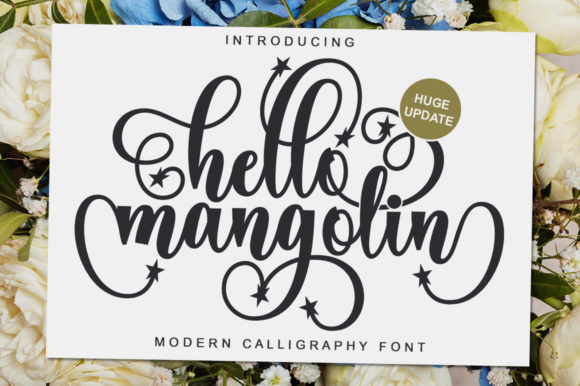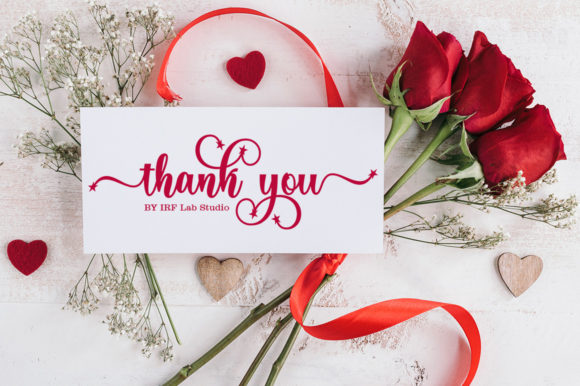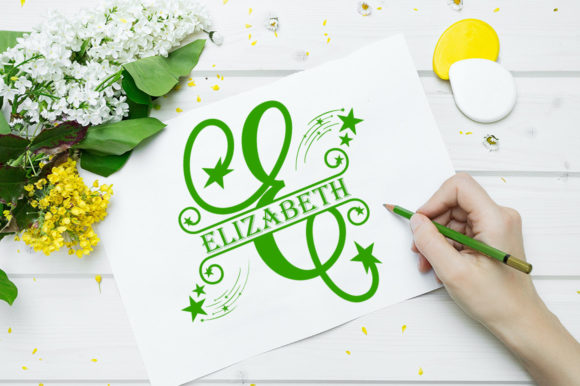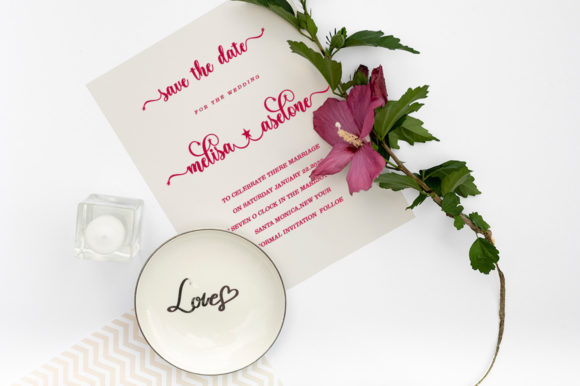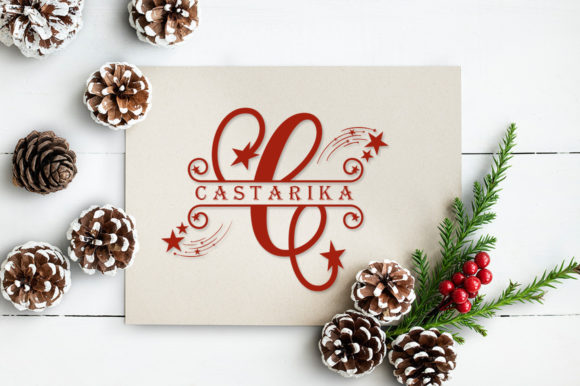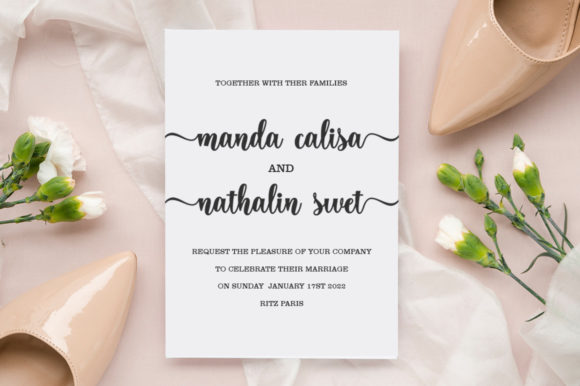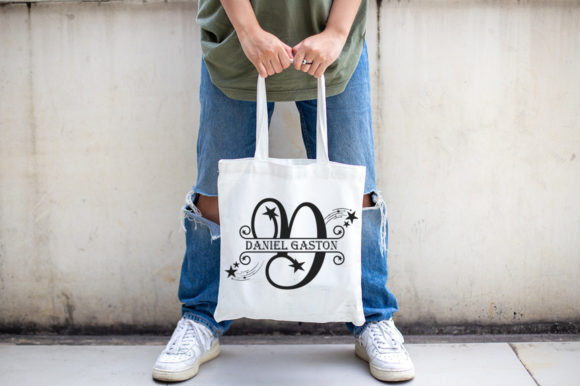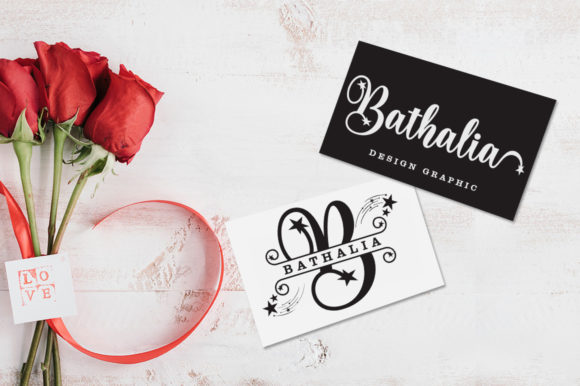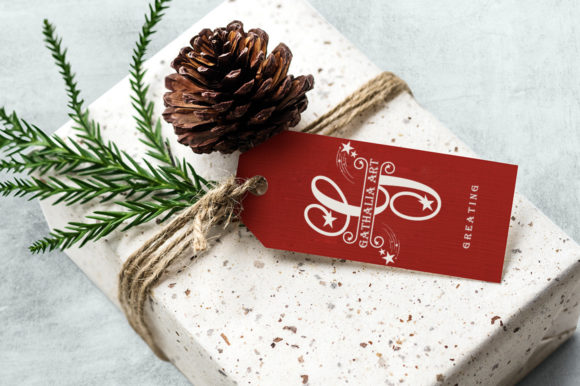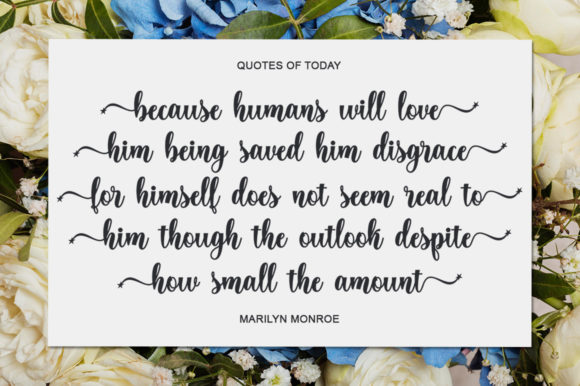
Hello Mangolin Update Font
About Hello Mangolin Update Font
Hello Mangolin Update is a romantic and sweet calligraphic font. It will add a spark of luxury to any design project you want to create! This font is PUA encoded which means you can access all the amazing glyphs and ligatures with ease!